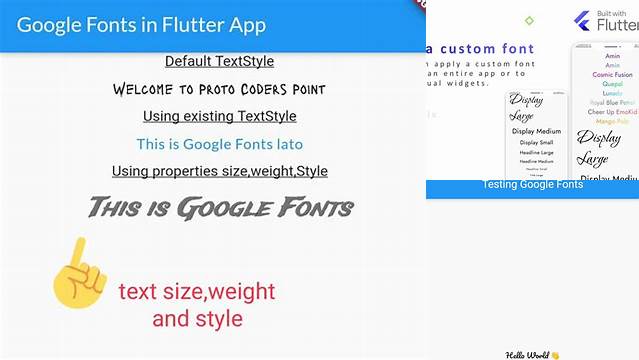
Flutter Google Fonts: Styling Text Themes Like A Pro
Hey Flutter developers! Ever felt like your app's text is a bit...meh? Want to spice things up with awesome fonts but dread the thought of manual imports and configurations? Well, you're in the right place! We're diving deep into the world of Flutter and Google Fonts, specifically how to use them effectively with your text themes. Trust me, this is a game-changer for your app's visual appeal. So, let's get started, guys! We'll explore everything from the basics to advanced techniques, ensuring your app's typography is on point.
2. Understanding Flutter TextTheme
Alright, let's talk TextTheme. This is where the magic really happens. The TextTheme in Flutter is like your app's style guide for text. It defines the default styles for different types of text, such as headings, body text, and buttons. Think of it as a central hub for all your text styling needs. You can customize font families, font sizes, colors, and even font weights all in one place. Why is this so cool? Because it promotes consistency throughout your app. Imagine having to manually style every single piece of text – what a nightmare! With TextTheme, you set it once, and it applies everywhere, making your app look polished and professional. Moreover, using a TextTheme makes your app more maintainable. If you decide to change the font for all your headings, you only need to update it in one place. This not only saves time but also reduces the risk of inconsistencies. The TextTheme class provides a range of predefined text styles, such as headline1, headline2, bodyText1, bodyText2, and more. Each of these styles can be customized to match your app's design. For instance, you might want to use a bold font for your headlines and a regular font for your body text. By leveraging the TextTheme, you can ensure that your app has a cohesive and visually appealing text style throughout.
3. Implementing Google Fonts in TextTheme
Now, let's get practical. How do you actually use Google Fonts within your TextTheme? It's easier than you might think! You'll typically start by defining your TextTheme within your app's ThemeData. This is where you'll specify the default styles for your text. To use a Google Font, you simply use the GoogleFonts class provided by the google_fonts package. For example, you can set the headline1 style to use the 'Roboto' font like this: headline1: GoogleFonts.roboto(fontSize: 96, fontWeight: FontWeight.w300, letterSpacing: -1.5). See how clean that is? You're directly specifying the font family, size, weight, and other properties right there. This approach keeps your code organized and readable. By integrating Google Fonts directly into your TextTheme, you're ensuring that your app's typography is consistent and visually appealing. The GoogleFonts class offers a straightforward way to apply fonts to various text styles, making your code cleaner and more maintainable. For each text style, you can customize various properties such as font size, font weight, letter spacing, and color. This level of customization allows you to create a unique and cohesive text style that perfectly matches your app's design. Remember, a well-defined TextTheme is crucial for creating a professional-looking app, and using Google Fonts within it can elevate your app's visual appeal significantly.
4. Customizing Font Styles
So, you've got your Google Font in your TextTheme, but what if you want to tweak it a bit? No problem! The beauty of TextTheme is its flexibility. You can customize almost every aspect of your font styles. Want to change the font size? Just adjust the fontSize property. Need a bolder look? Play with fontWeight. Want to add some letter spacing for a more elegant feel? letterSpacing is your friend. And of course, you can change the color using the color property. The goal here is to create a text style that perfectly fits your app's design and enhances the user experience. Don't be afraid to experiment with different combinations of styles to see what works best. Customizing font styles goes beyond just changing the basic properties like size and weight. You can also adjust the line height (height), text alignment (textAlign), and text decoration (decoration). These properties allow you to fine-tune the appearance of your text and create a polished and professional look. For example, you might want to increase the line height for better readability or add an underline to certain text elements to draw attention. By leveraging the full range of customization options, you can create a text style that is not only visually appealing but also functional and user-friendly. Remember, the details matter when it comes to typography, so take the time to explore and experiment with different styles.
5. Applying TextTheme to Your Widgets
Okay, you've crafted this beautiful TextTheme with your chosen Google Fonts, now how do you actually use it in your Flutter widgets? It's super straightforward. Flutter provides a handy Theme widget that makes it easy to apply your TextTheme (and other theme properties) to your app. You typically wrap your main app widget with a Theme widget and provide your custom ThemeData. Then, within your widgets, you can access the TextTheme using Theme.of(context).textTheme. From there, you can use the predefined styles like headline1, bodyText2, etc., in your TextStyle properties. For instance, you might use Theme.of(context).textTheme.headline6 for a heading in a Text widget. This approach ensures that your text styles are consistent across your app, making it look cohesive and professional. Applying the TextTheme to your widgets is a crucial step in ensuring that your app's typography is consistent and visually appealing. By using the Theme.of(context).textTheme approach, you can easily access the predefined styles and apply them to your text elements. This not only saves time but also reduces the risk of inconsistencies in your app's design. Remember, a well-defined TextTheme is a powerful tool for creating a professional-looking app, and knowing how to apply it effectively is essential for any Flutter developer. So, make sure you understand how the Theme widget works and how to access the TextTheme within your widgets. This will help you create a cohesive and visually appealing user interface.
6. Using Different Font Weights
Font weights can dramatically change the look and feel of your text. They range from thin to extra-bold, giving you a lot of flexibility in how you style your text. In Flutter, you can specify font weights using the FontWeight enum. Common options include FontWeight.w100 (Thin), FontWeight.w400 (Regular), FontWeight.w700 (Bold), and FontWeight.w900 (Black). Experimenting with different font weights can help you create visual hierarchy in your app. For example, you might use a bold font weight for headings to make them stand out and a regular font weight for body text to ensure readability. Integrating Google Fonts with different weights is a breeze. The google_fonts package automatically handles the loading of different font weights, so you don't need to worry about manually importing them. Just specify the desired font weight in your TextStyle, and the package will take care of the rest. Using different font weights strategically can significantly enhance the visual appeal and readability of your app. For instance, you might use a lighter font weight for captions or secondary text elements to create a subtle contrast. A well-balanced combination of font weights can add depth and sophistication to your app's design. Remember, the goal is to create a visual hierarchy that guides the user's eye and makes the content easy to digest. So, take the time to experiment with different font weights and find the perfect balance for your app.
7. Font Size Variations
Just like font weights, font sizes play a crucial role in visual hierarchy. Different font sizes help distinguish between headings, subheadings, body text, and captions. A well-defined font size scale can make your app more readable and visually appealing. In Flutter's TextTheme, you have various predefined styles with different font sizes, such as headline1 (largest), headline6, bodyText1, and caption (smallest). You can customize these sizes to fit your app's design. When choosing font sizes, consider the overall layout and the amount of text on the screen. You want to ensure that the text is large enough to be easily readable but not so large that it overwhelms the design. A common practice is to use a modular scale, where font sizes are related by a consistent ratio. This creates a harmonious and balanced look. Combining Google Fonts with different font sizes allows you to create a sophisticated and professional typography system for your app. By carefully selecting the font sizes for different text elements, you can guide the user's eye and create a clear visual hierarchy. Remember, the goal is to make your app's content as accessible and engaging as possible, and font sizes play a critical role in achieving that.
8. Letter Spacing and Line Height
Letter spacing (or tracking) and line height (or leading) are often overlooked but can significantly impact the readability of your text. Letter spacing adjusts the space between characters, while line height adjusts the space between lines. Both properties can be customized in Flutter's TextStyle. Increasing letter spacing can make text feel more airy and elegant, while decreasing it can make text feel more compact. Line height is crucial for readability, especially for longer blocks of text. If the lines are too close together, the text can feel cramped and difficult to read. If the lines are too far apart, the text can feel disjointed. When using Google Fonts, experimenting with letter spacing and line height can help you fine-tune the appearance of your text and create a more polished and professional look. A slight adjustment to these properties can often make a big difference in readability and overall visual appeal. Remember, the goal is to make your app's content as easy and enjoyable to read as possible, and these properties are valuable tools for achieving that.
9. Text Color and Contrast
Text color and contrast are fundamental aspects of typography and overall design. The color of your text should complement the background color and provide sufficient contrast for readability. Low contrast can make text difficult to read, while high contrast can cause eye strain. In Flutter, you can customize text color using the color property in TextStyle. It's essential to choose colors that align with your app's brand and create a harmonious visual experience. When using Google Fonts, consider how the font color interacts with the font's style and weight. A bold font might look good with a lighter color, while a light font might require a darker color for better visibility. Additionally, think about accessibility. Ensure that your text colors meet accessibility guidelines for color contrast, making your app usable for people with visual impairments. Choosing the right text color and ensuring sufficient contrast are crucial for creating a user-friendly and visually appealing app. Remember, readability is paramount, and color plays a significant role in achieving that.
30. Resources for Learning More
Want to dive even deeper into Flutter typography and Google Fonts? There are tons of resources available online to help you learn more. The official Flutter documentation is a great place to start. It provides detailed information about TextTheme, TextStyle, and other related classes. The google_fonts package documentation on pub.dev is another valuable resource. It explains how to use the package and provides tips for optimizing performance. There are also many blog posts, articles, and tutorials available online that cover various aspects of Flutter typography. Don't forget to check out online communities and forums, where you can ask questions and get help from other developers. By taking advantage of these resources, you can become a typography master in Flutter!